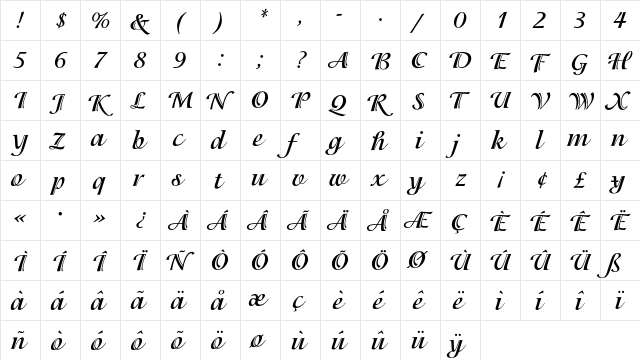
IsadoraEF Bold
Design Context for IsadoraEF Typeface
IsadoraEF is a composed and adaptable typeface that performs quietly and consistently across a wide range of design contexts. The heavy weight commands attention and anchors typographic hierarchies.